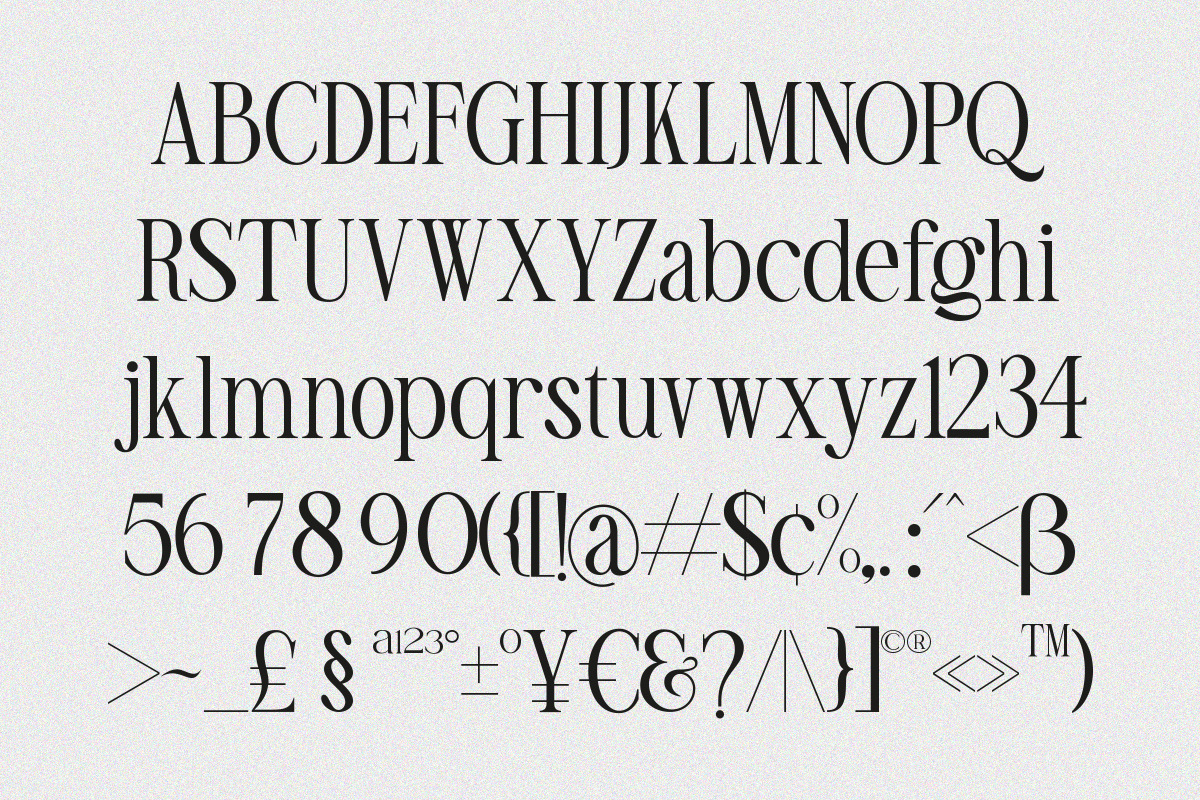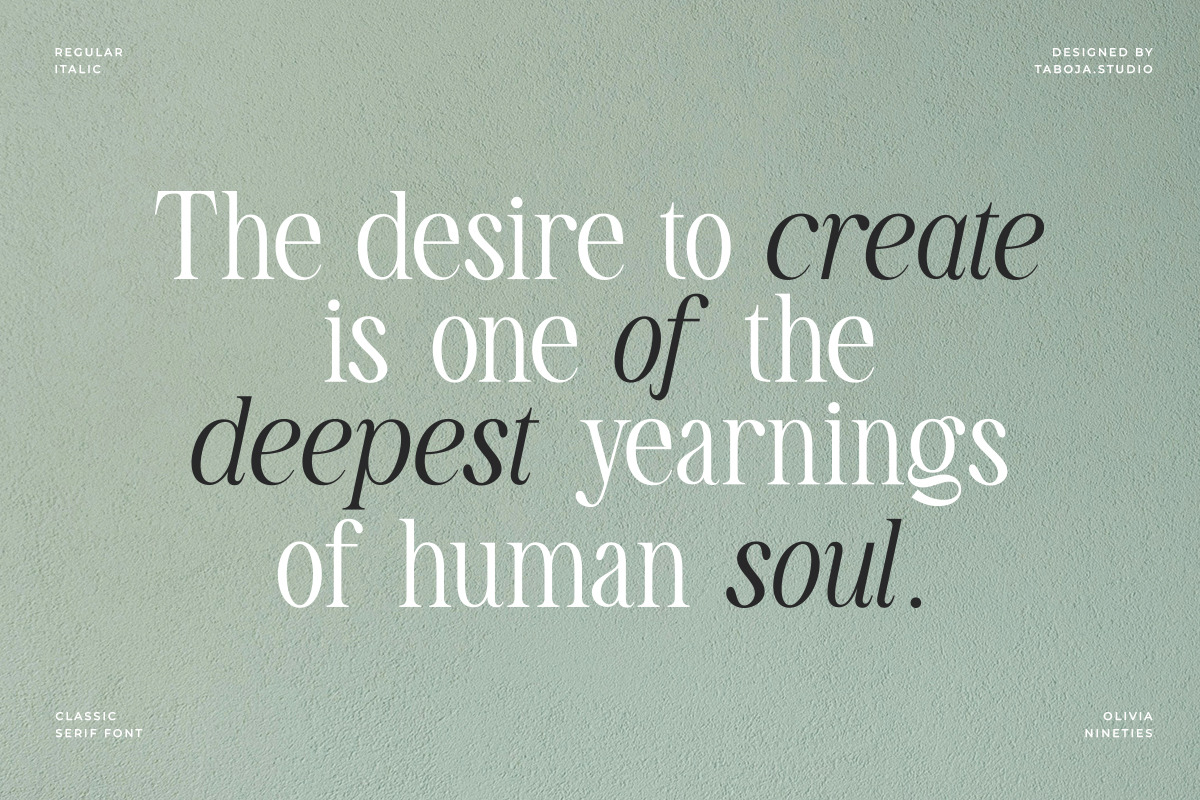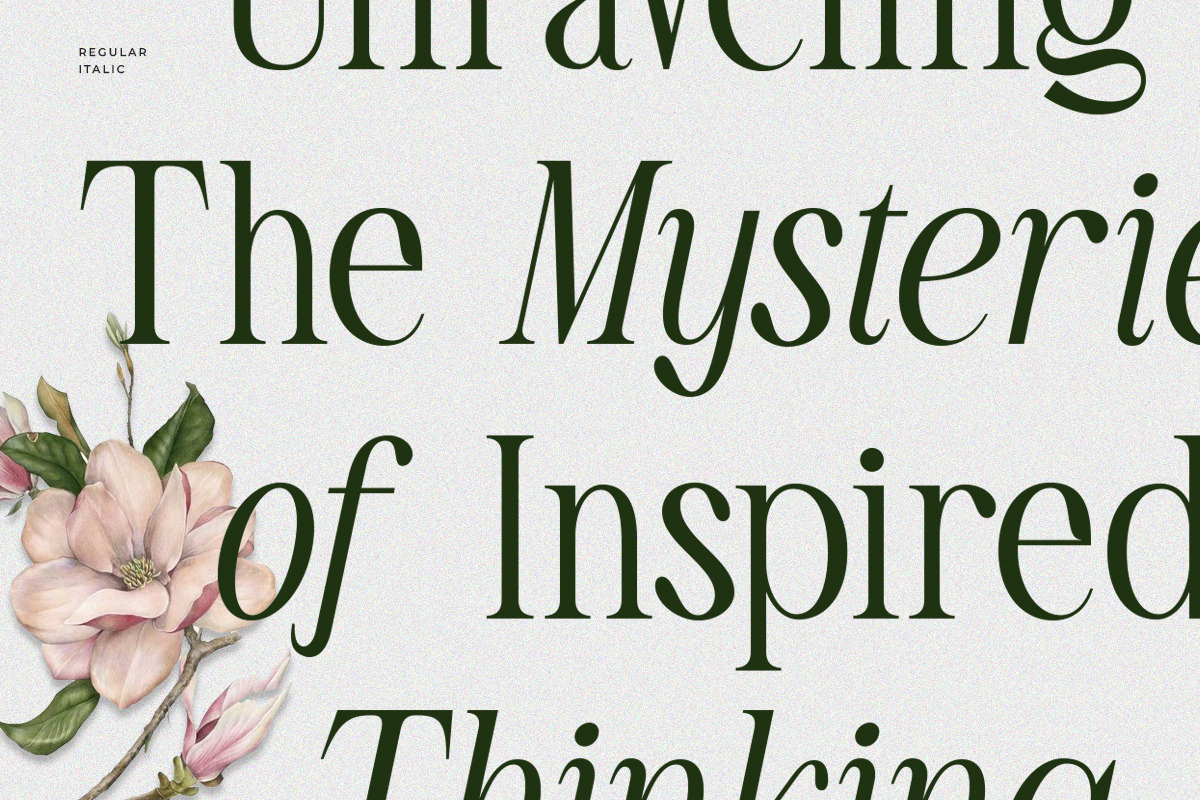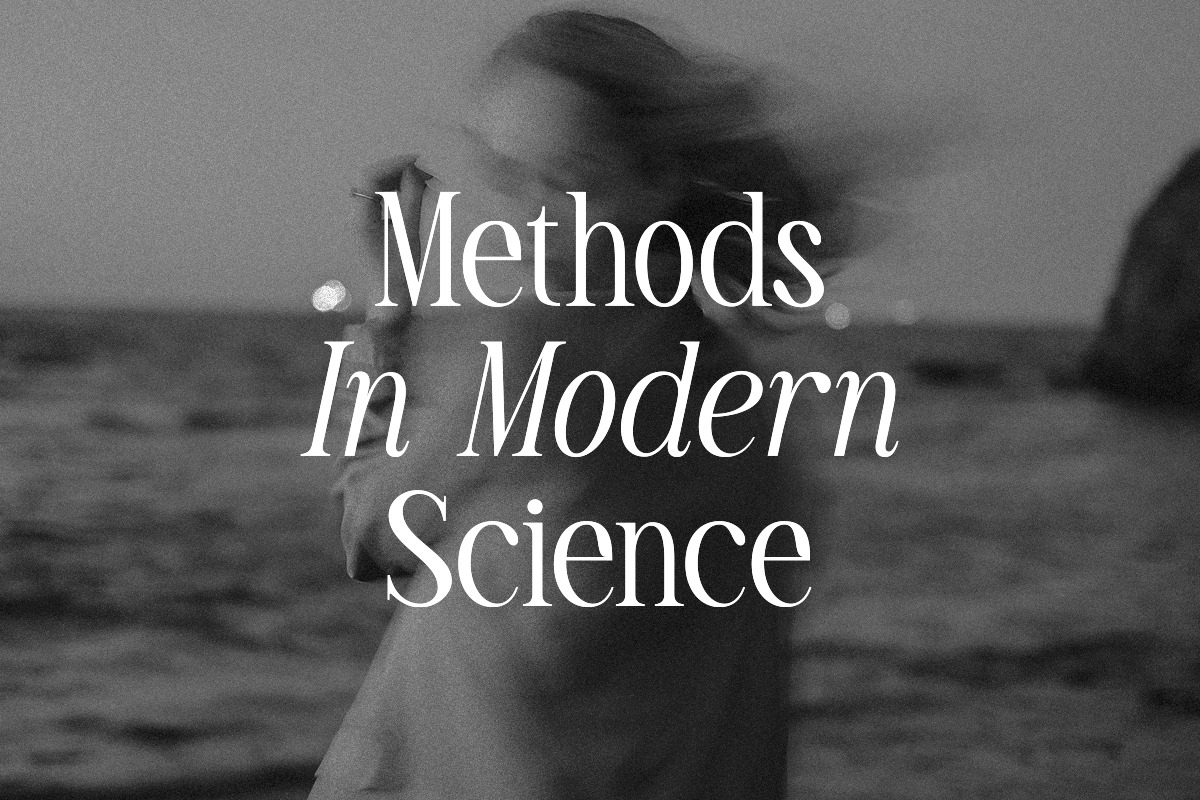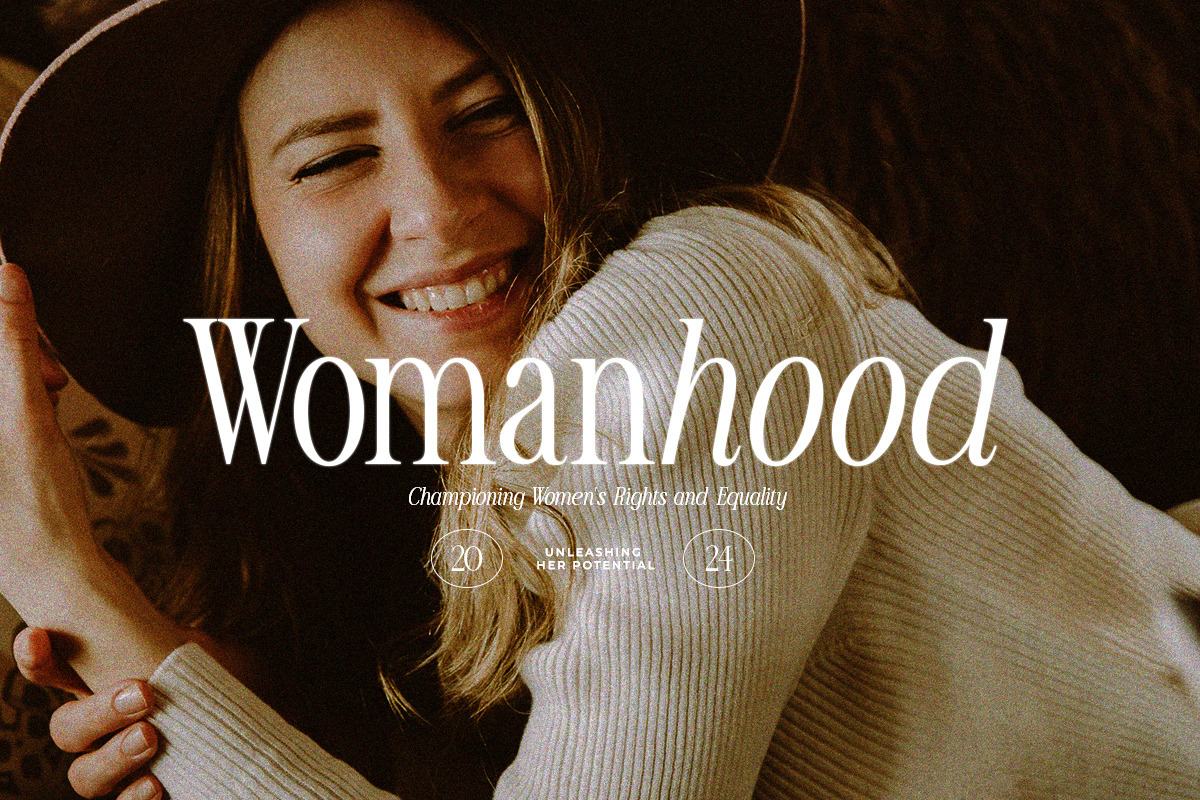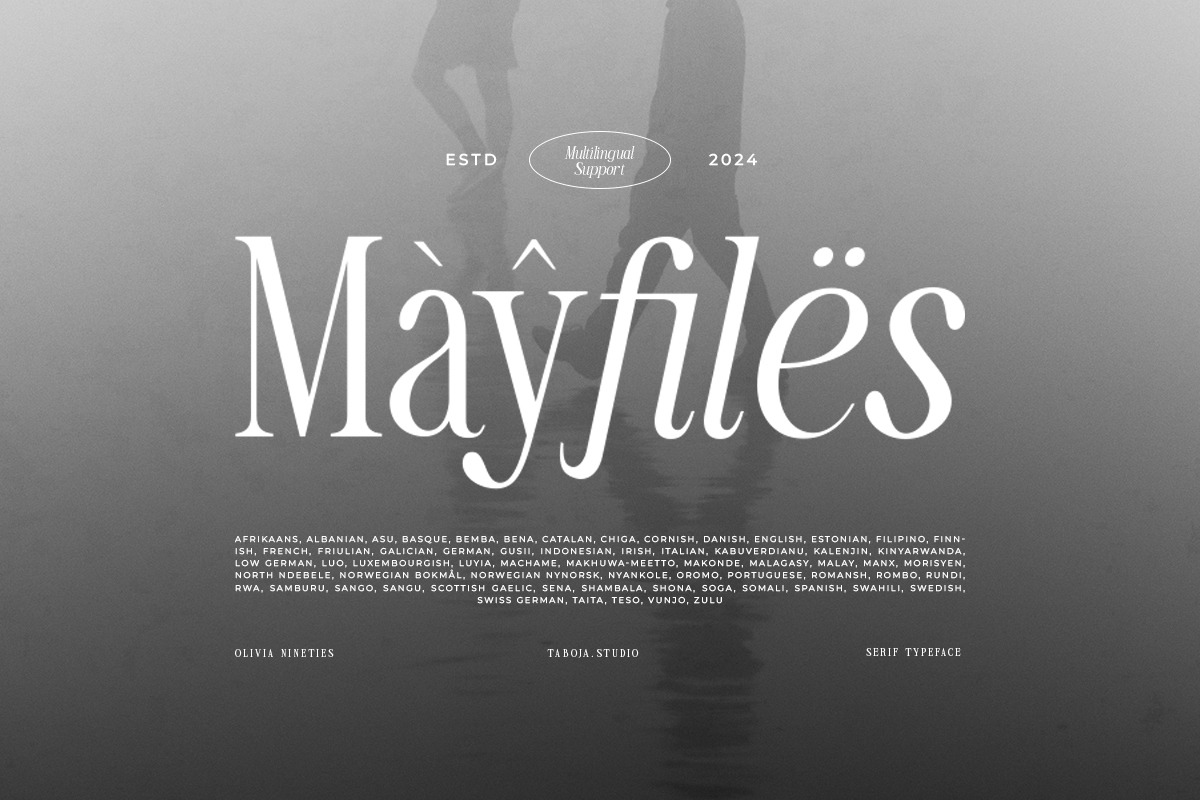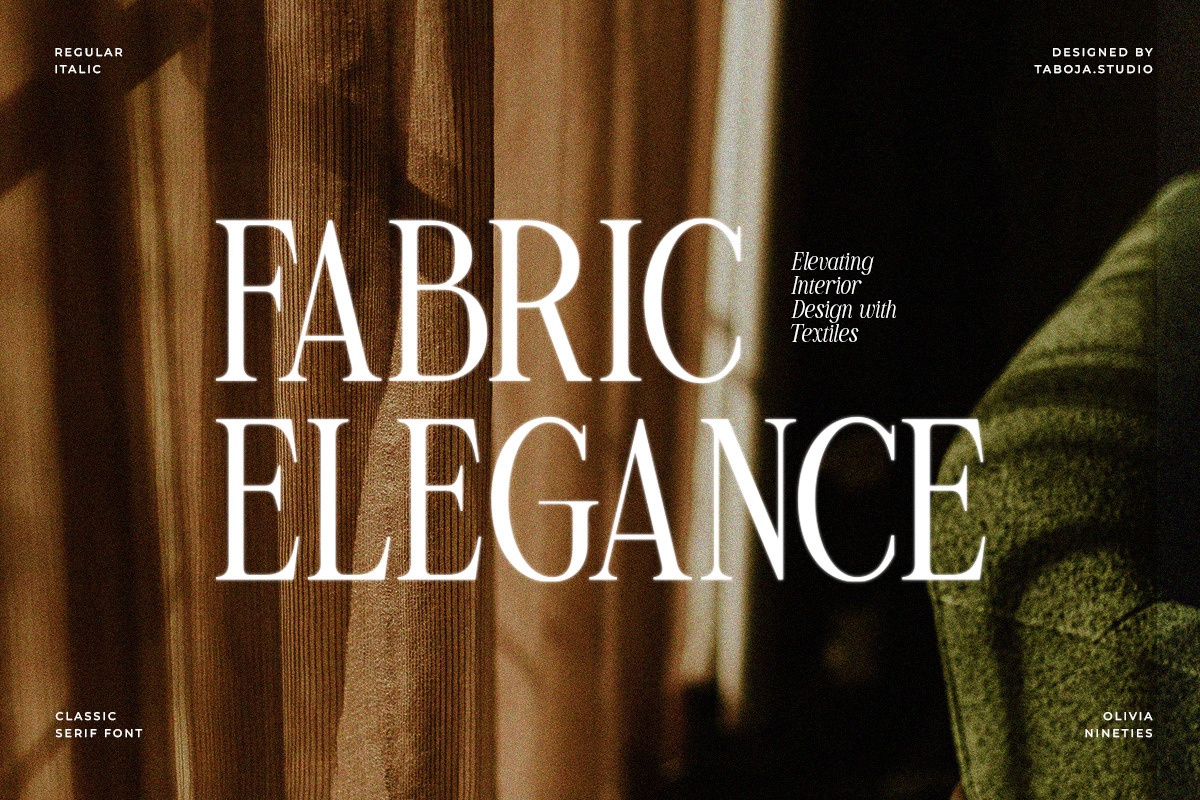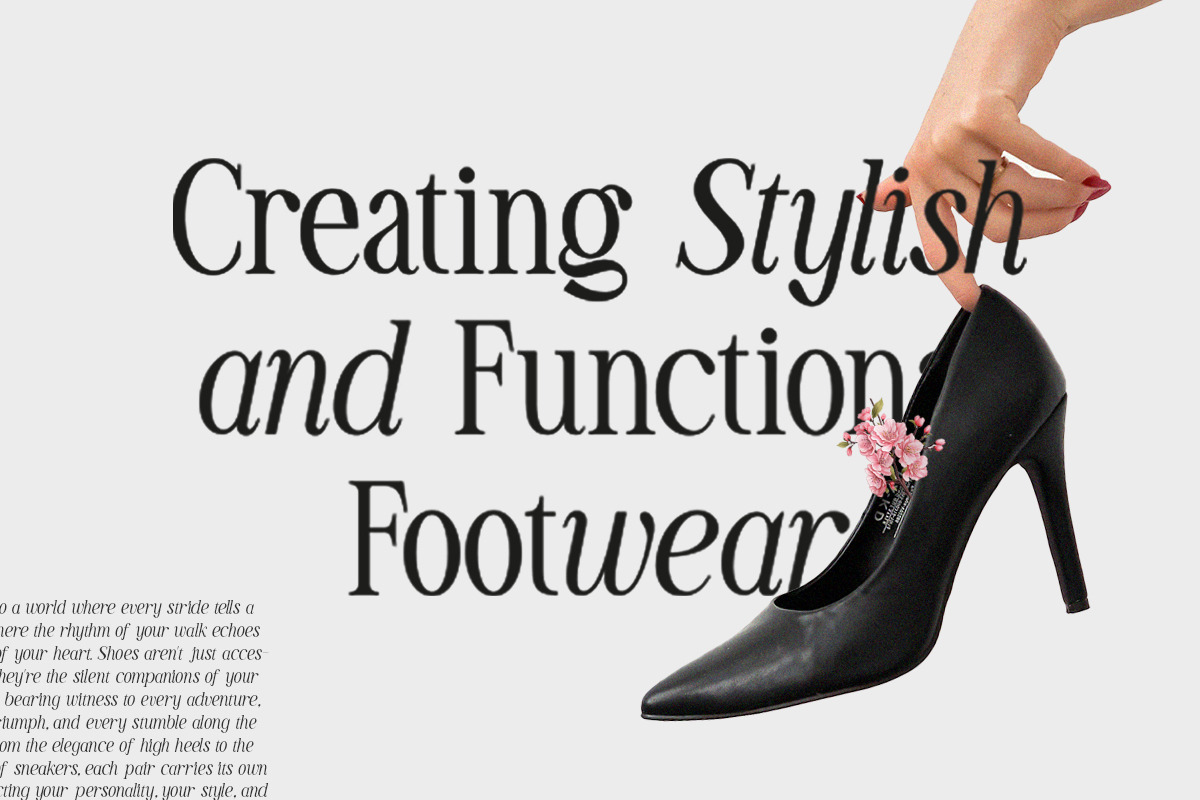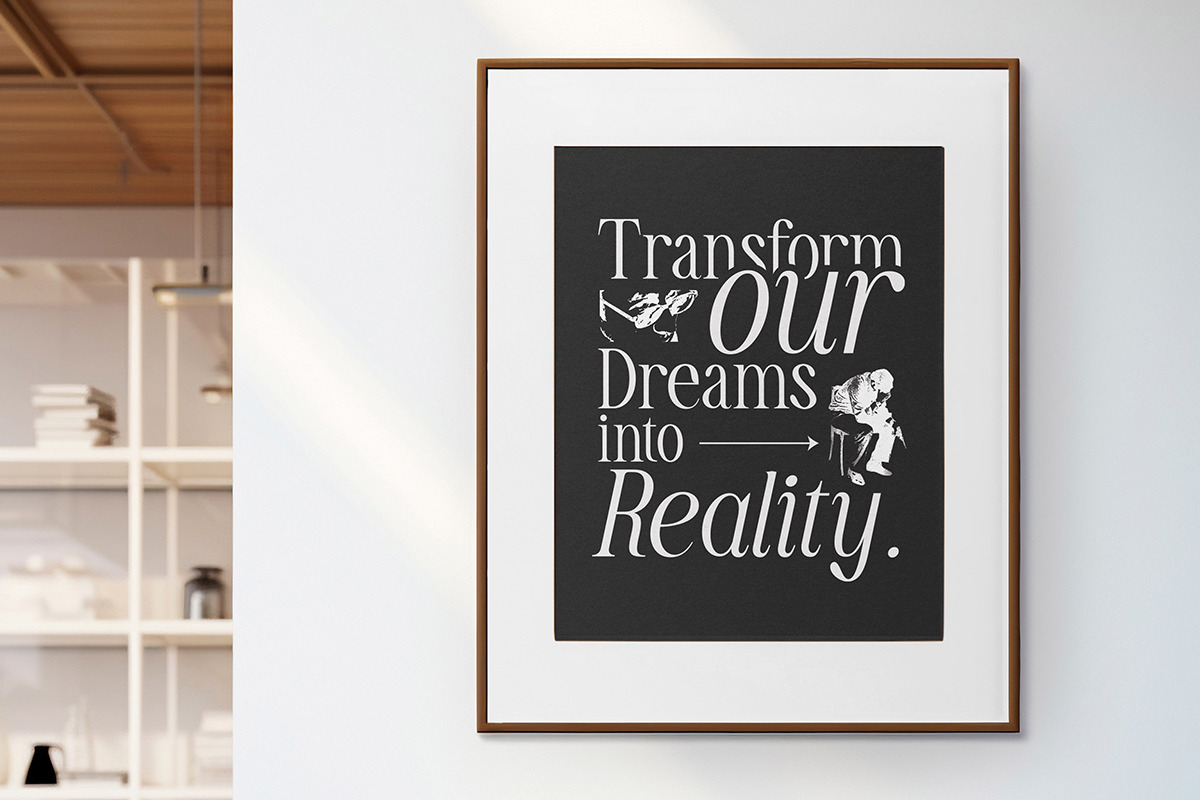
TBJ Olivia Nineties Classy Serif
Olivia Nineties Regular Italic is a font that exudes retro charm with accents reminiscent of 1990s handwriting style. With its light yet distinct slant, this font adds a unique and captivating touch to your designs. Each letter is meticulously designed to provide a distinctive and engaging impression, making text written with Olivia Nineties Regular Italic come alive and vibrant.
The typographic style presented by Olivia Nineties Regular Italic radiates warmth and nostalgia, suitable for design projects aiming to highlight retro or vintage nuances. With a friendly and enthusiastic impression, this font is suitable for use in various contexts such as poster design, logos, product packaging, or other graphic designs.
The intriguing typographic characteristics of Olivia Nineties Regular Italic make it the perfect choice to add a creative and unique touch to any design project. With its ability to attract attention and provide a different impression, this font is an ideal choice for those seeking bold and captivating designs.
Olivia Nineties Font Features:
- Uppercase And Lowercase
- Alternates And Ligatures